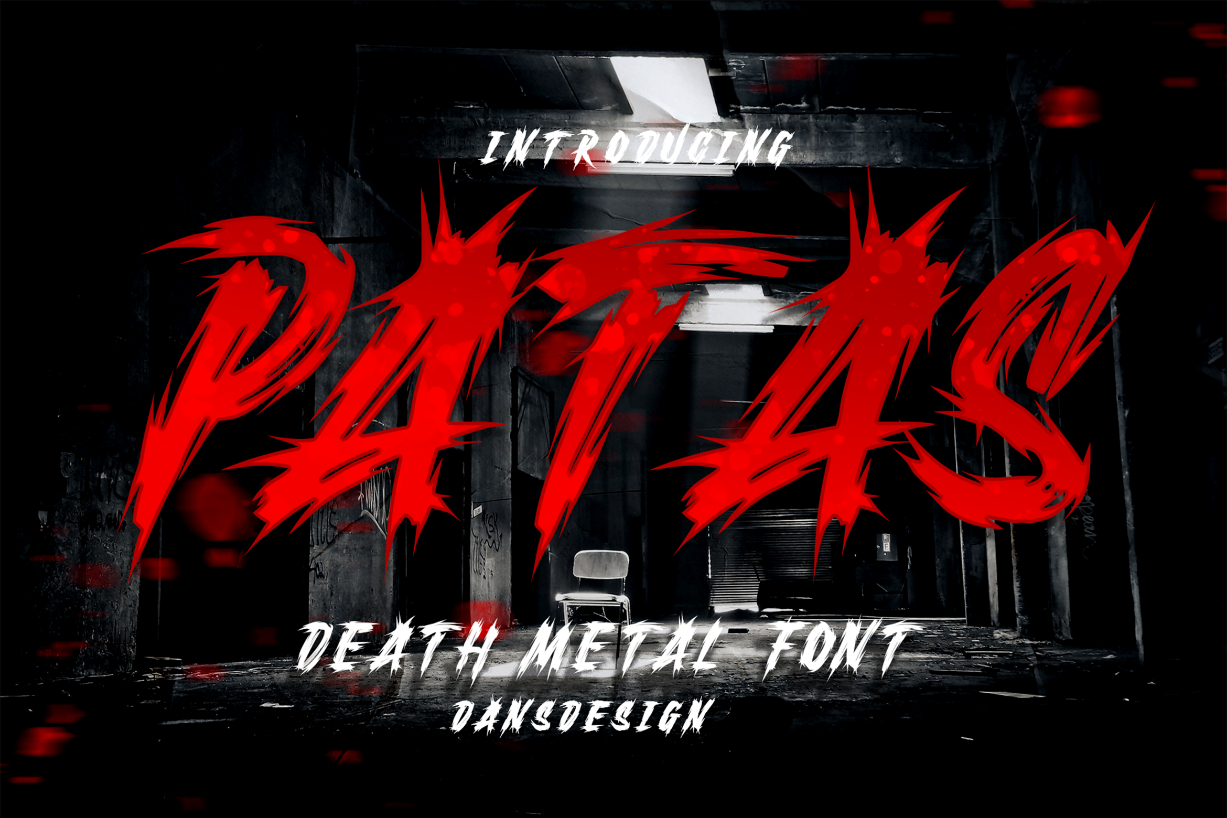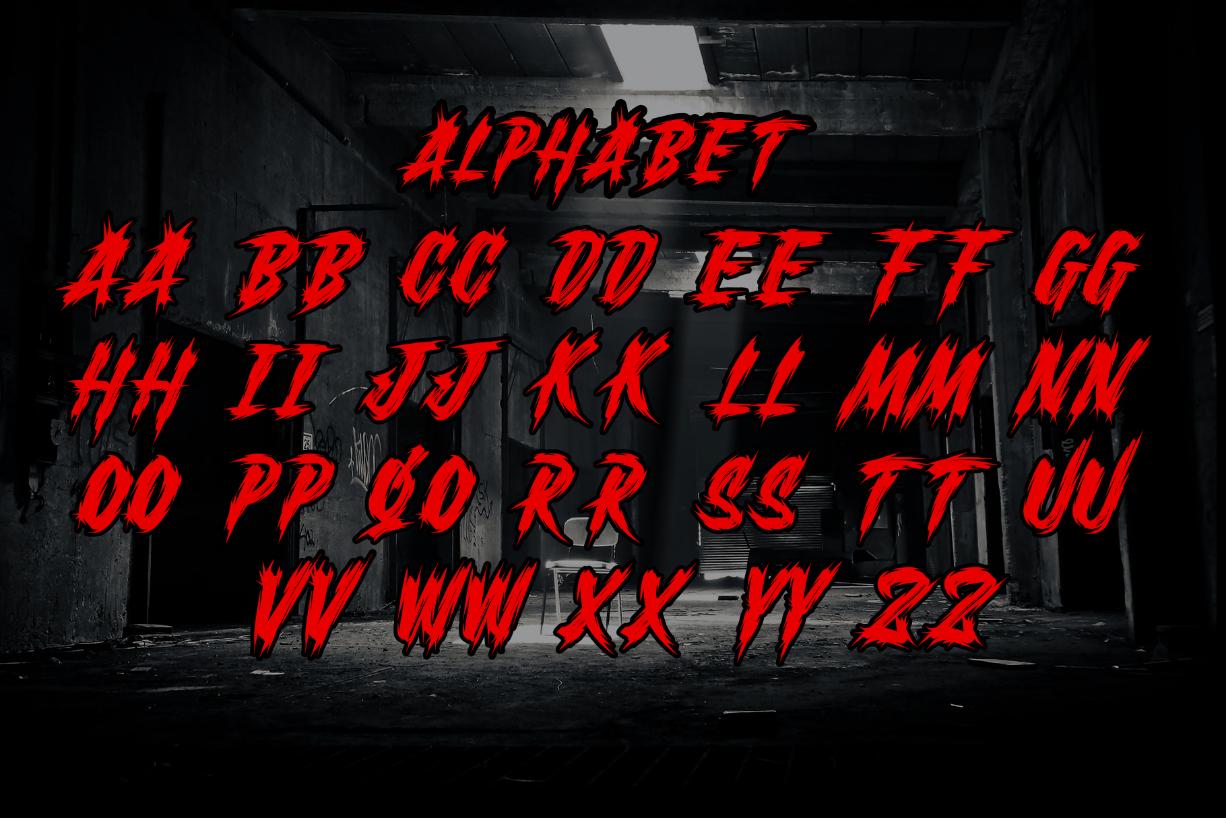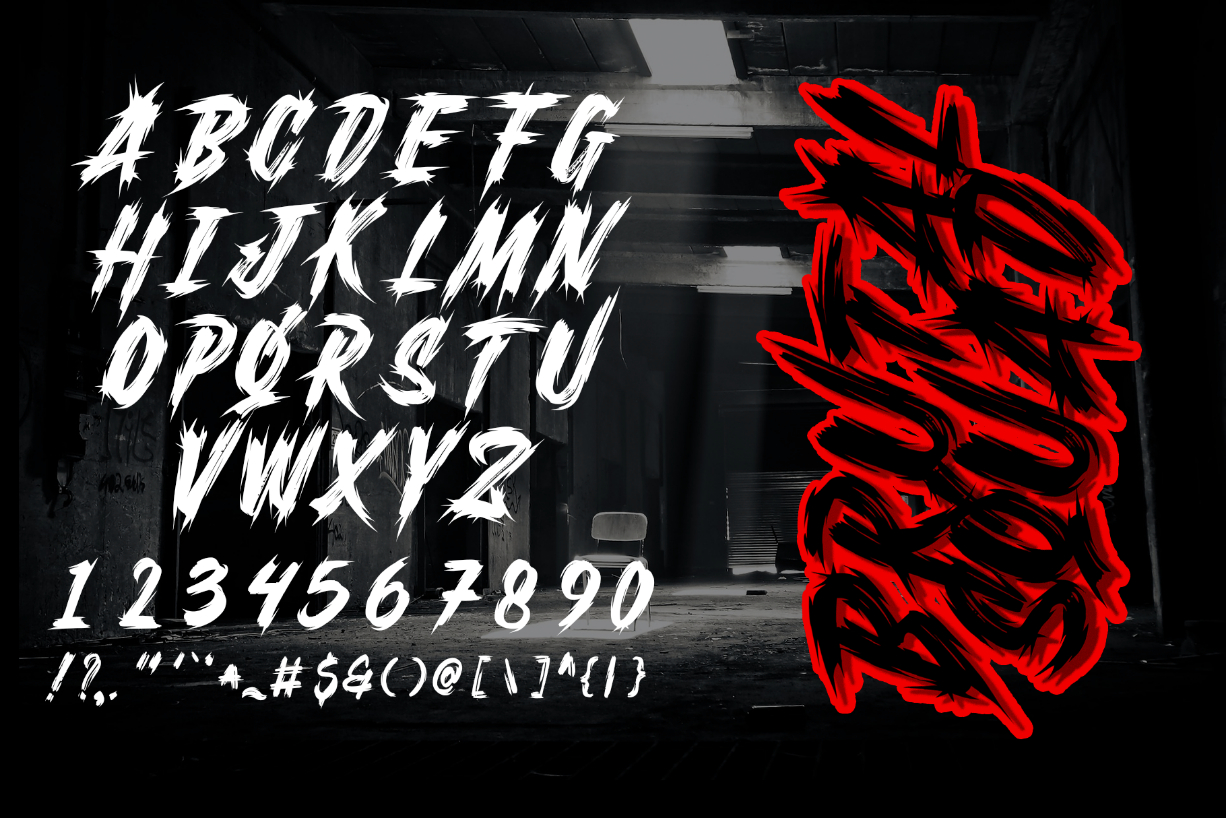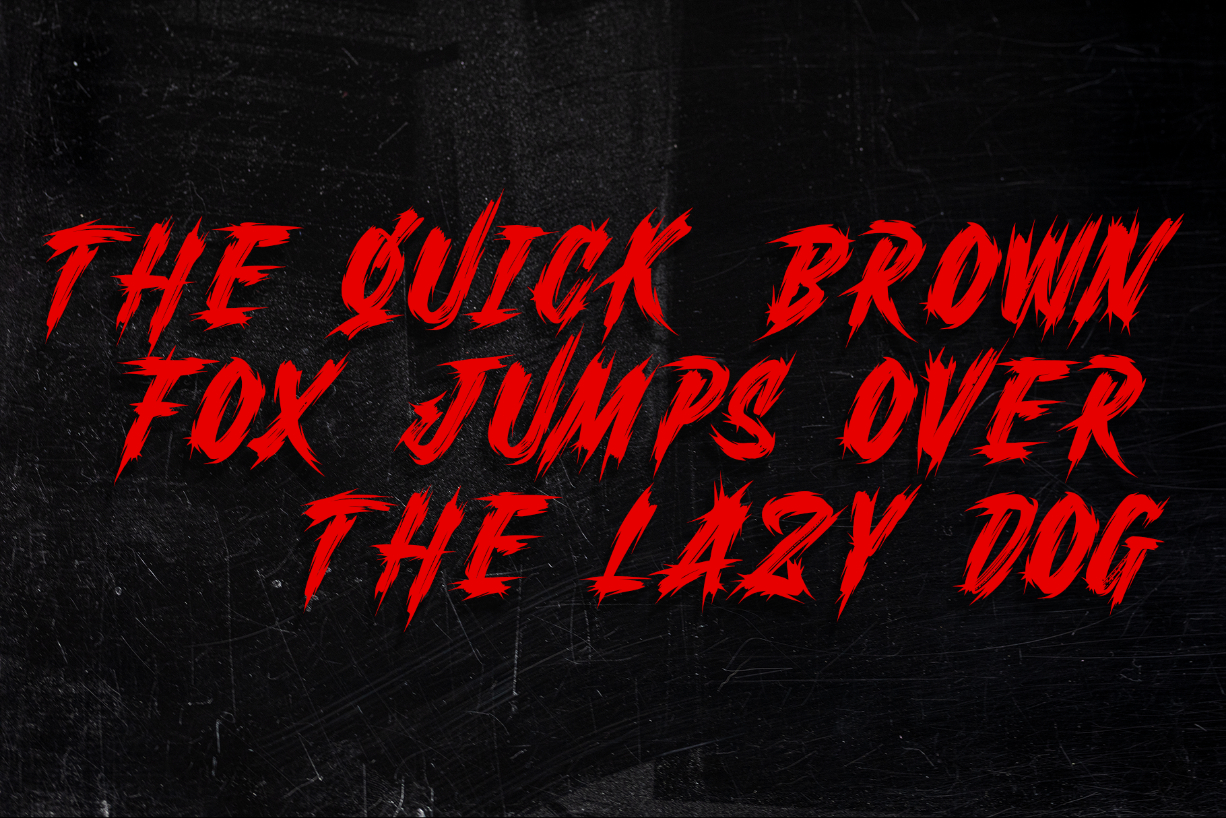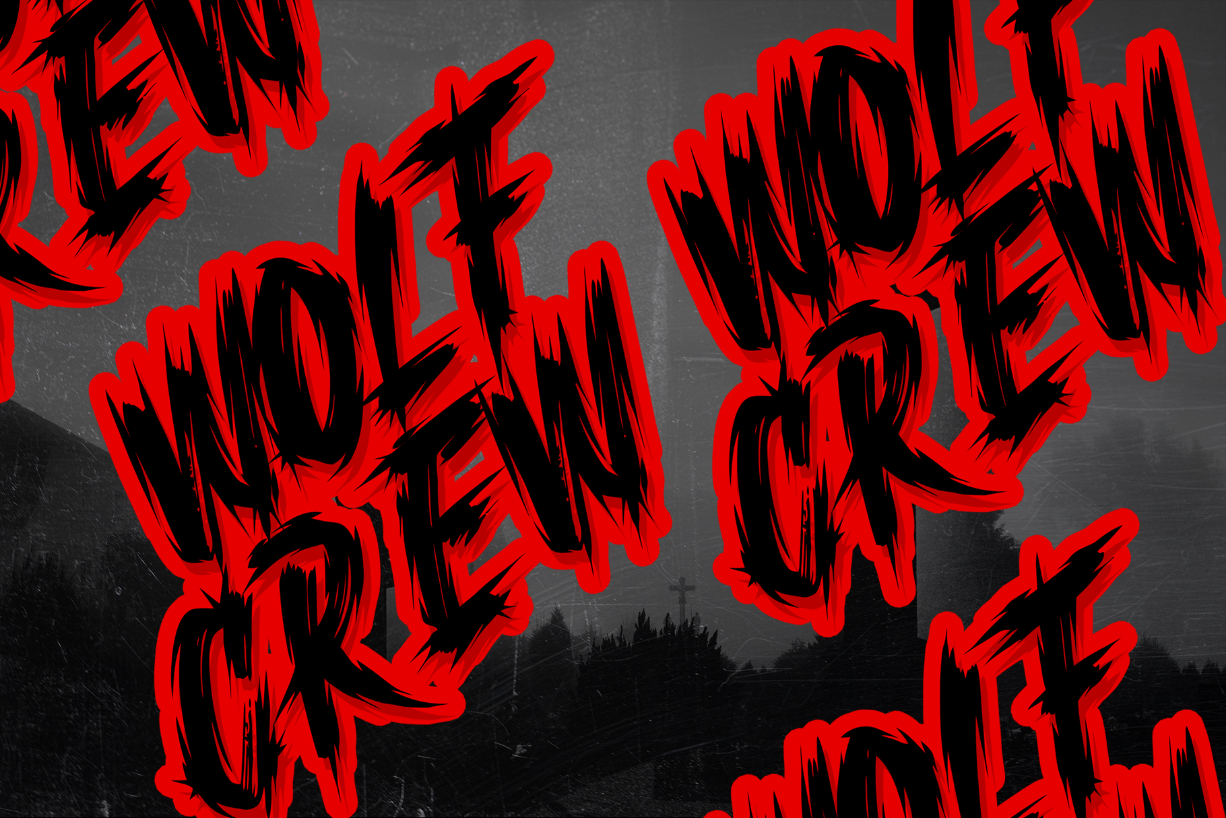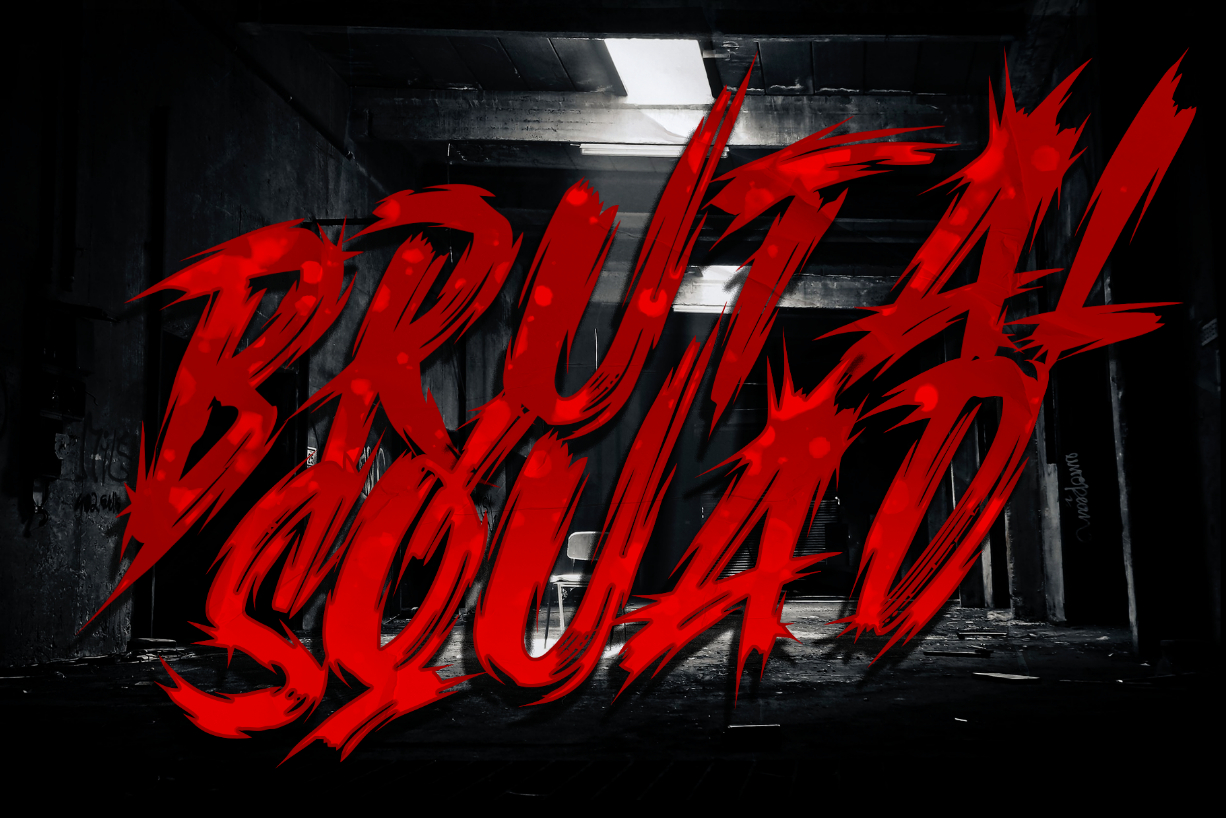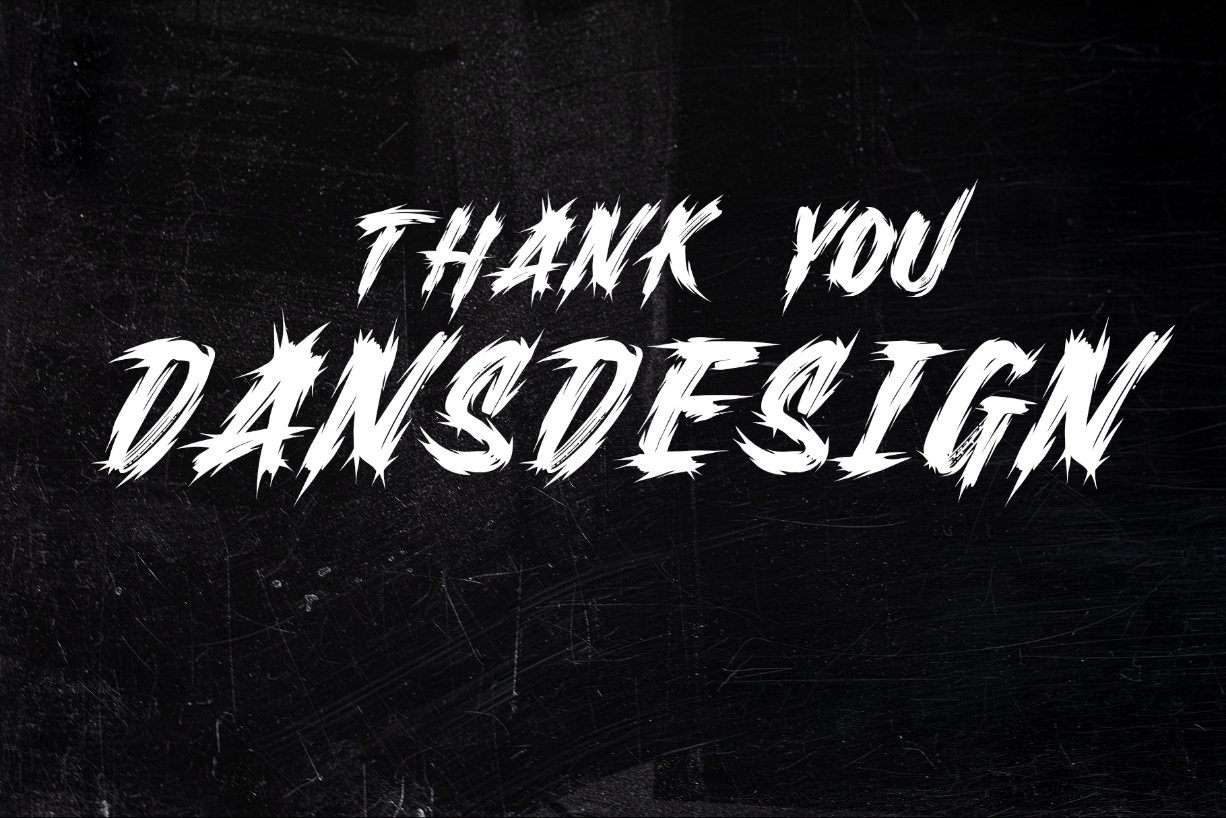
Patas Font
About Patas Font
Patas is a chilling and intimidating typeface, perfect for creating eye-catching titles and posters in the horror genre. With its jagged edges and metal texture, it adds an ominous touch to your designs and evokes fear in the viewer.